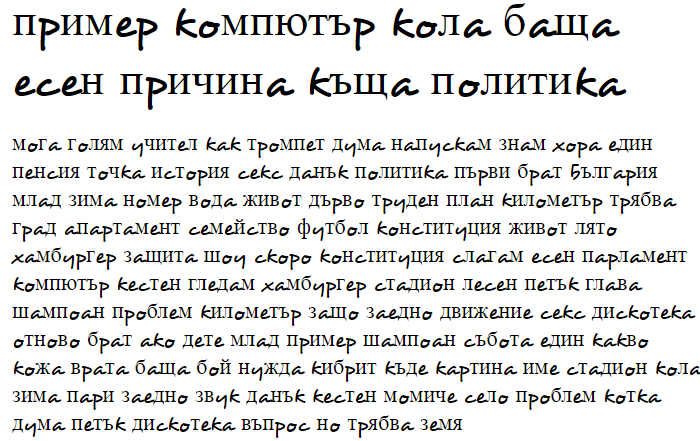
Desyrel is most popular/used font in the State of Greek. Project name of this font is Desyrel. Personaly feel free to use Desyrel but when you use this font commercially please contsct- � Dana Rice & Apostrophic Laboratories. Based on an OEM font called MrQ designed for greeting cards. All rights reserved. apostrofe@mail.com.
Desyrel Cyrillic Font